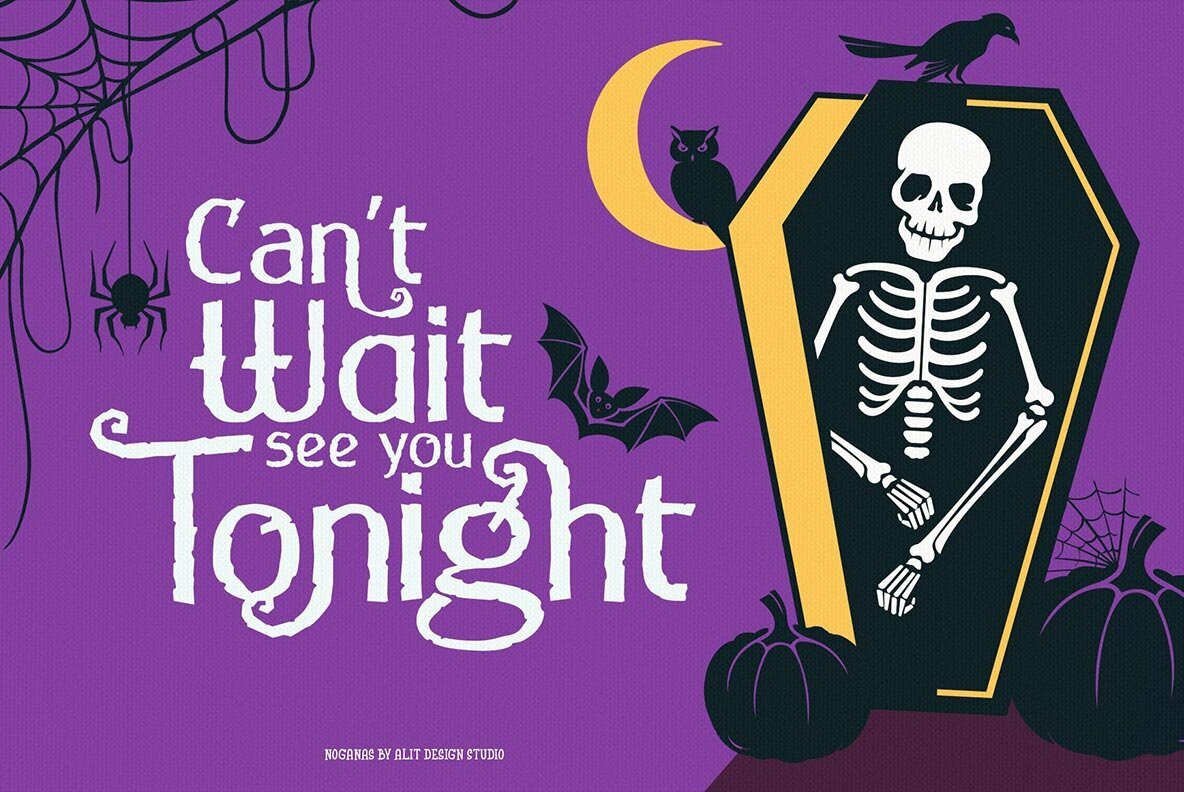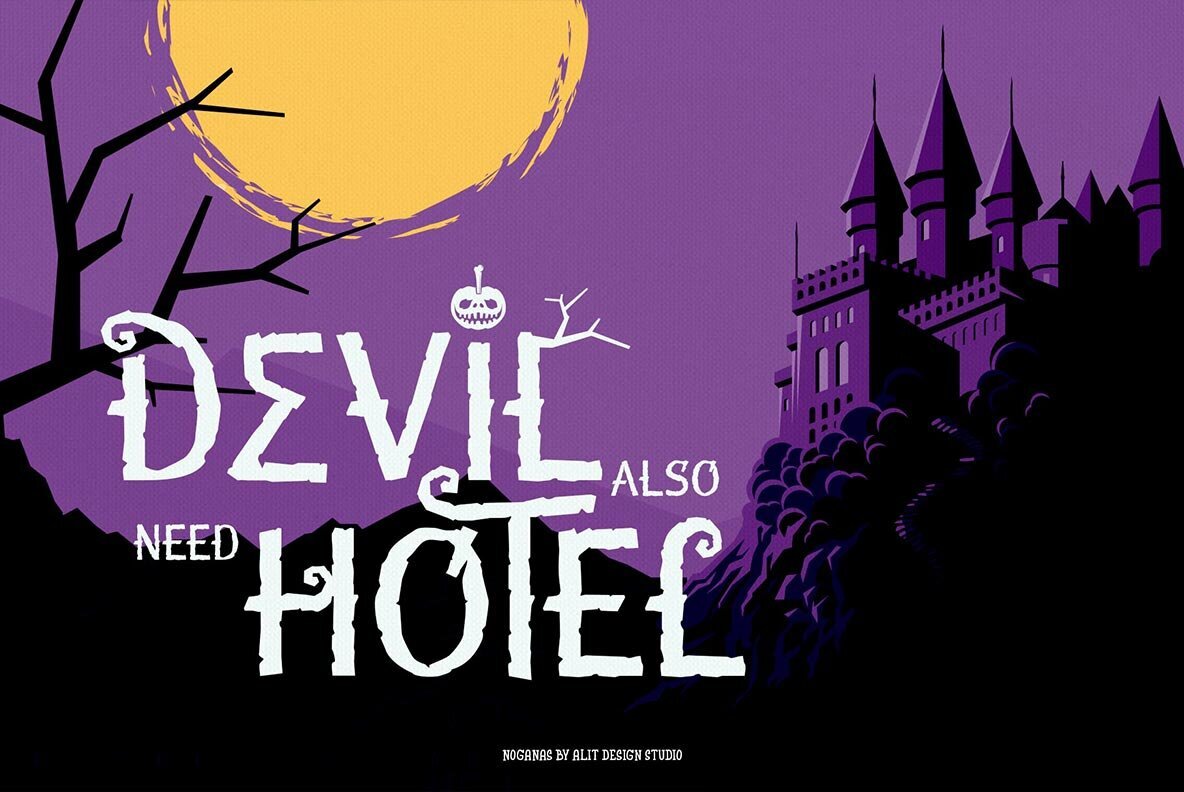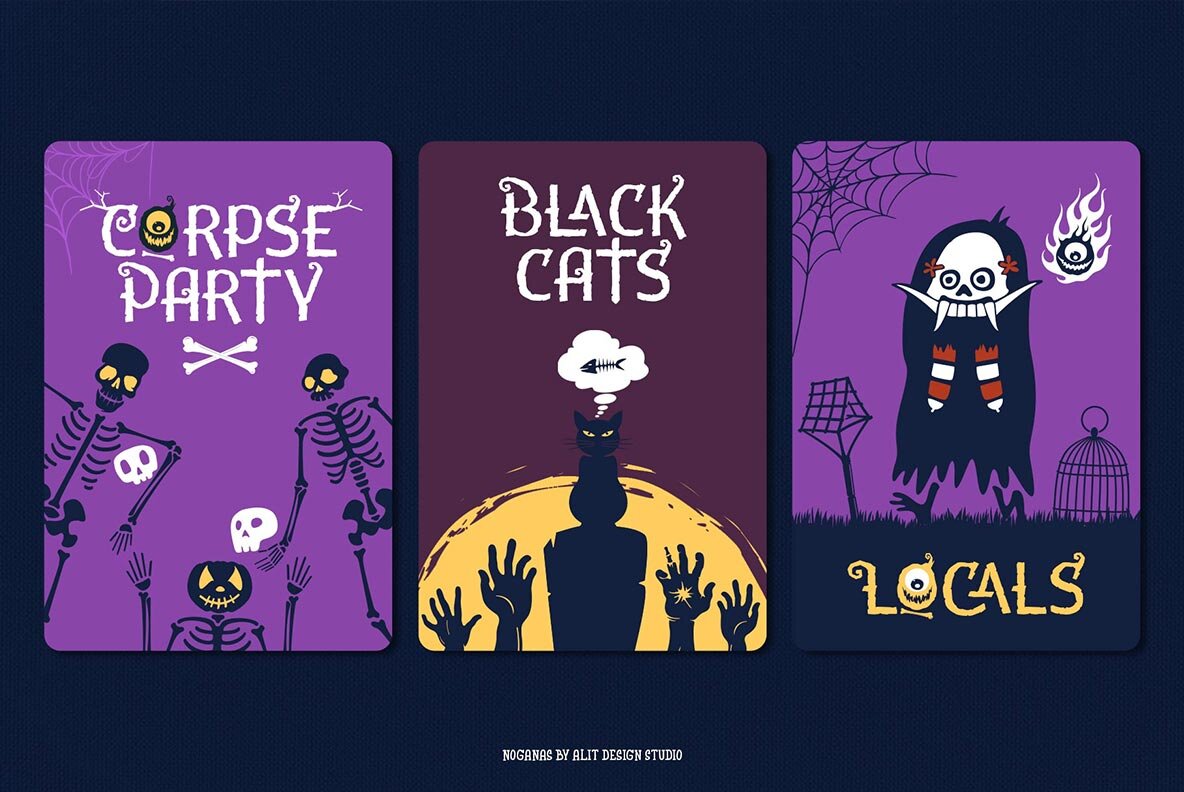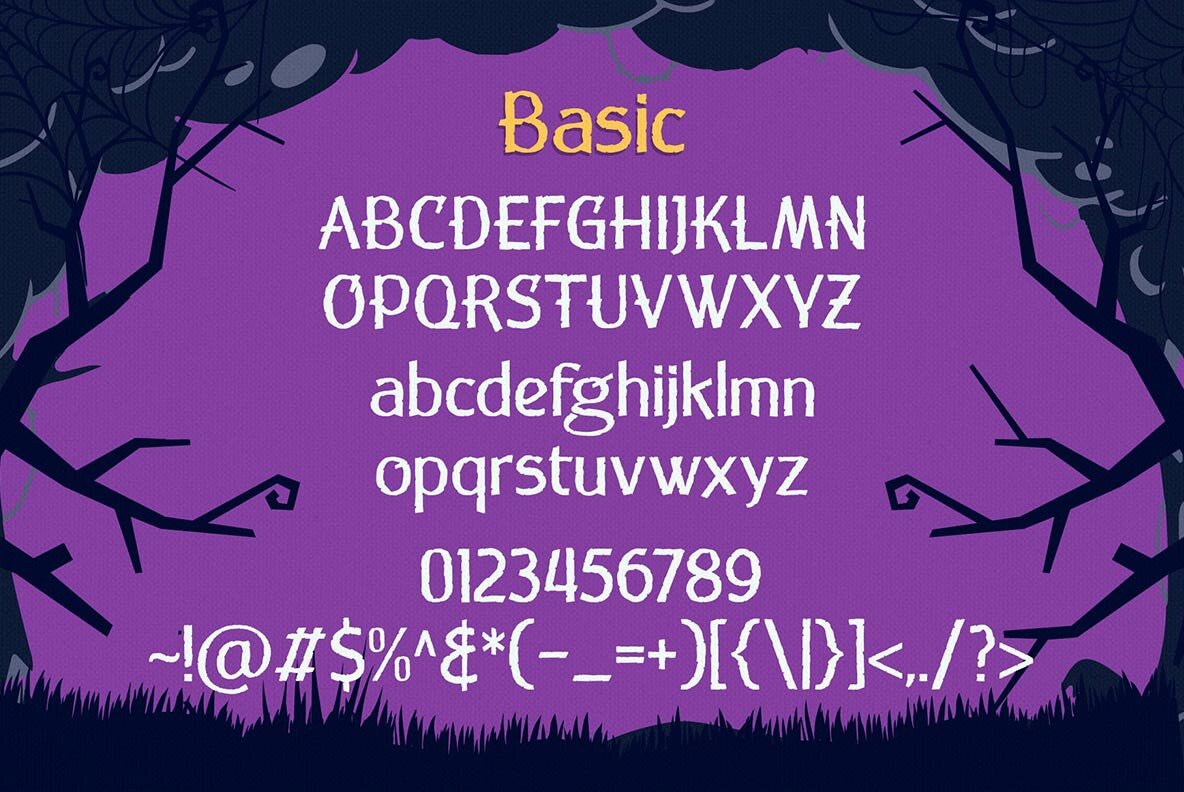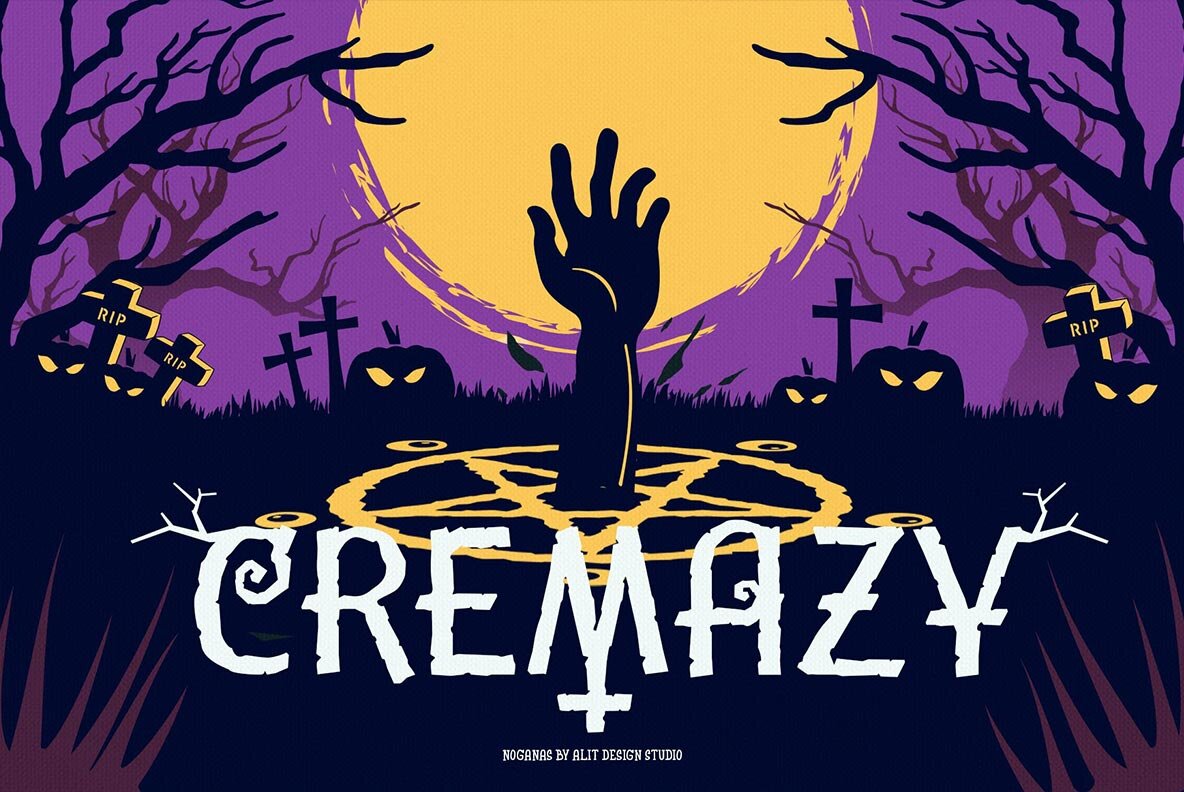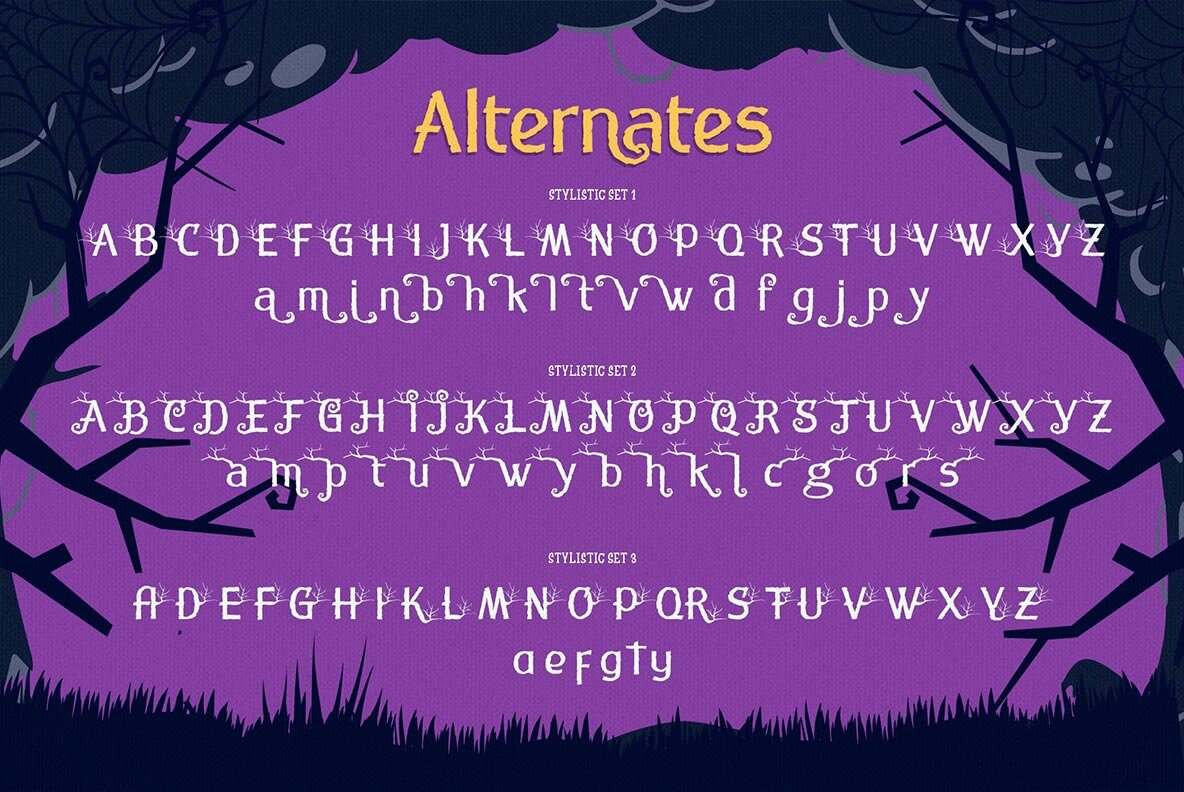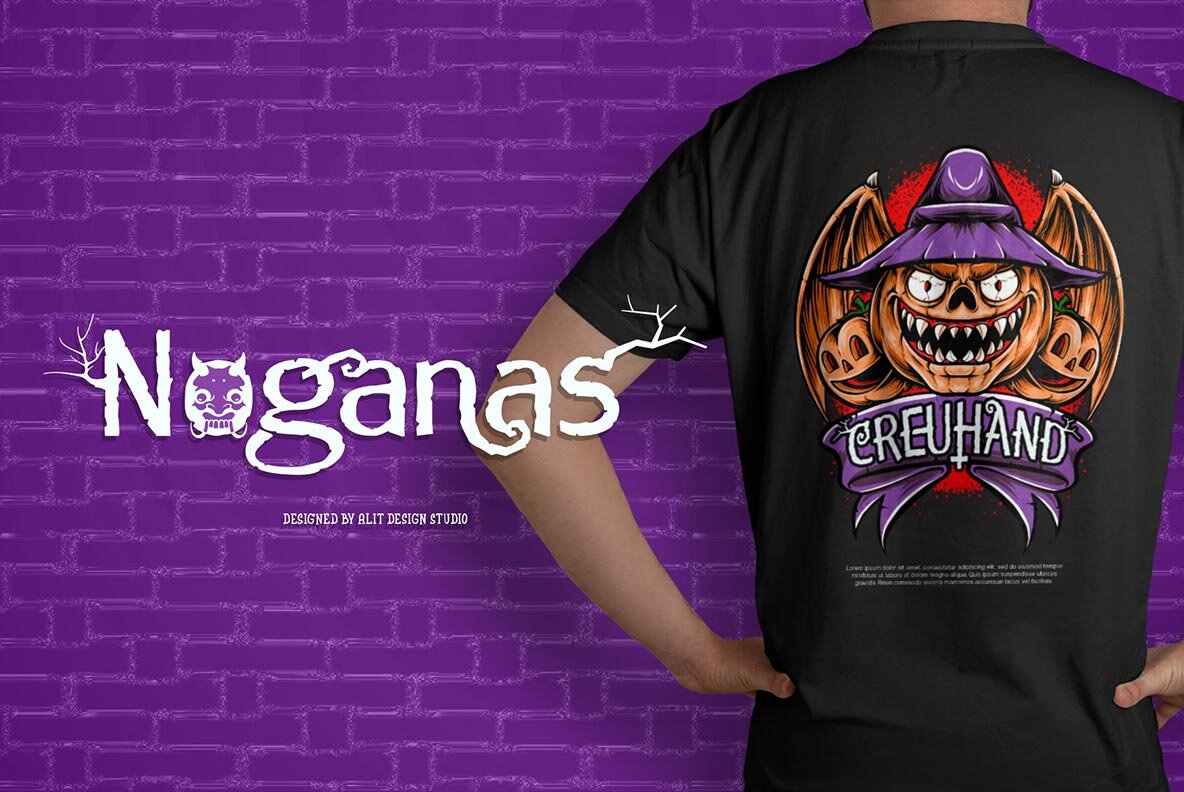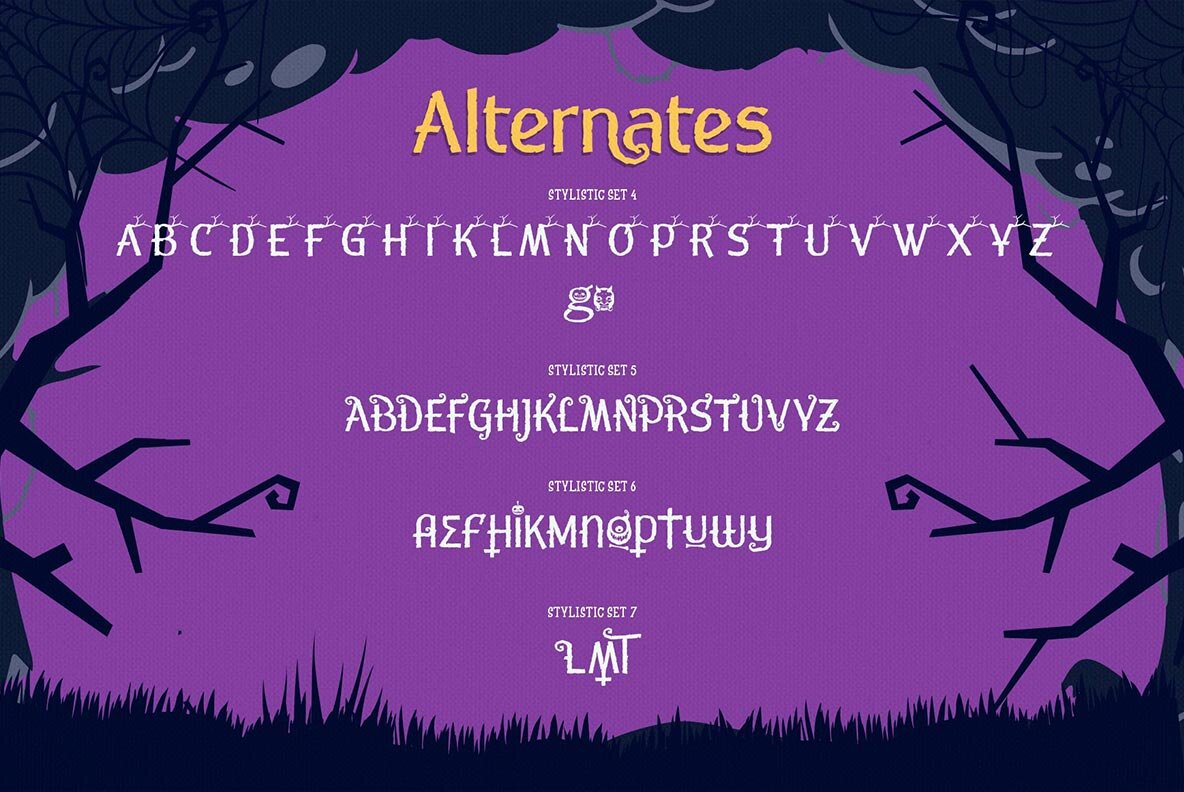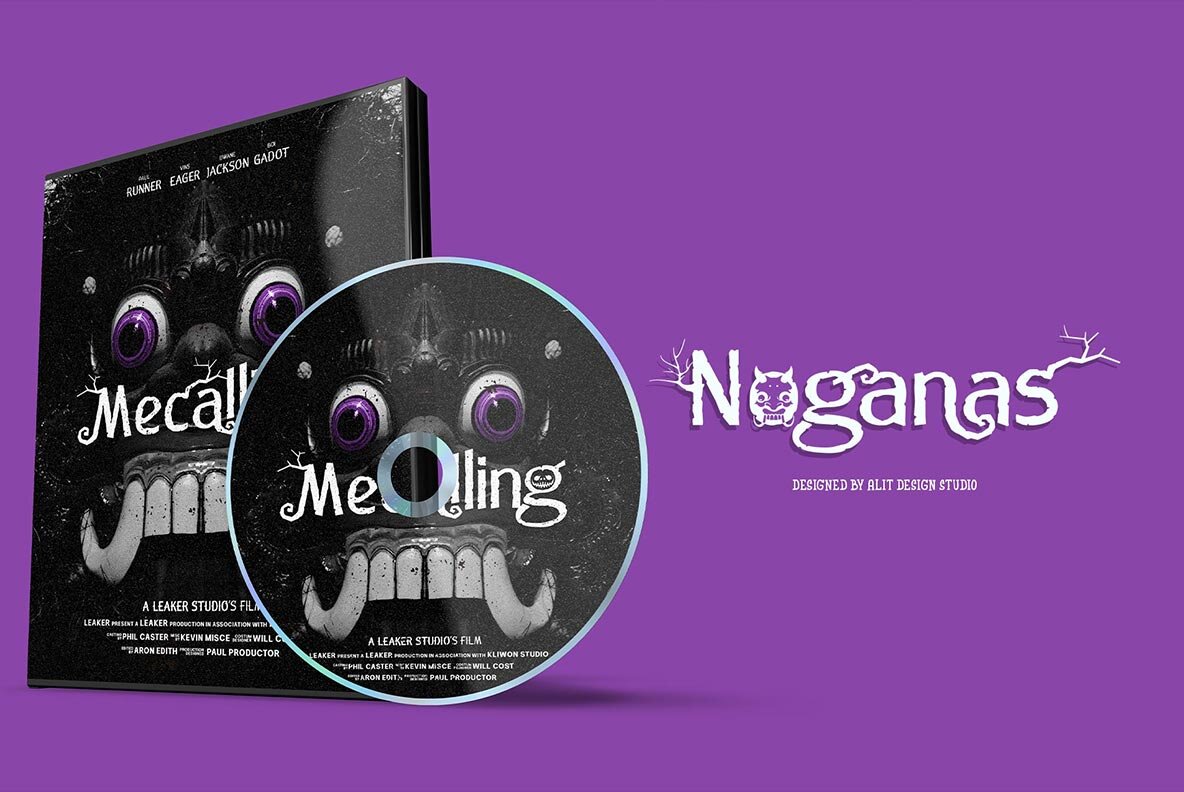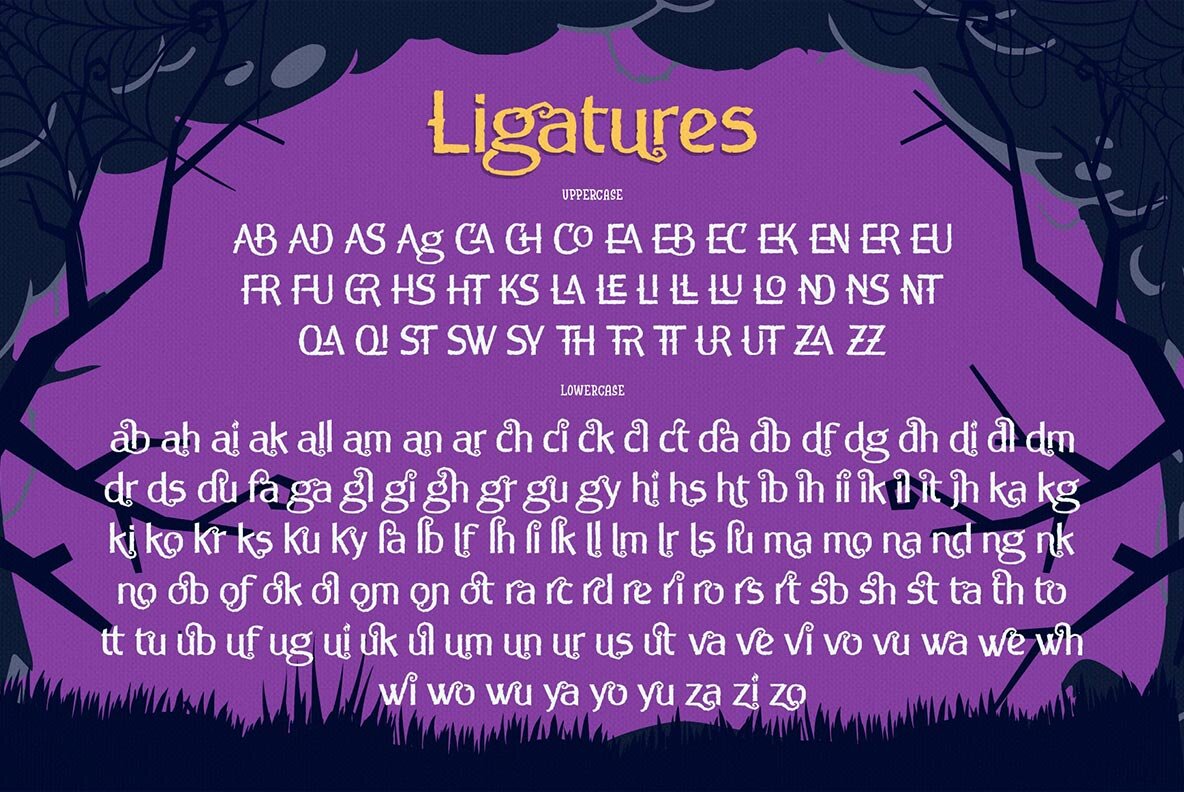
Noganas Halloween font
Noganas Halloween Typeface by Alit Suarnegara offers a whimsical yet haunting aesthetic, ideal for seasonal promotions and design projects. This font brings together the spooky charm of Halloween with a touch of sophistication, making it a versatile choice for designers seeking to infuse a creative edge into their work.Noganas Halloween Typeface: Eerie Elegance in Typography